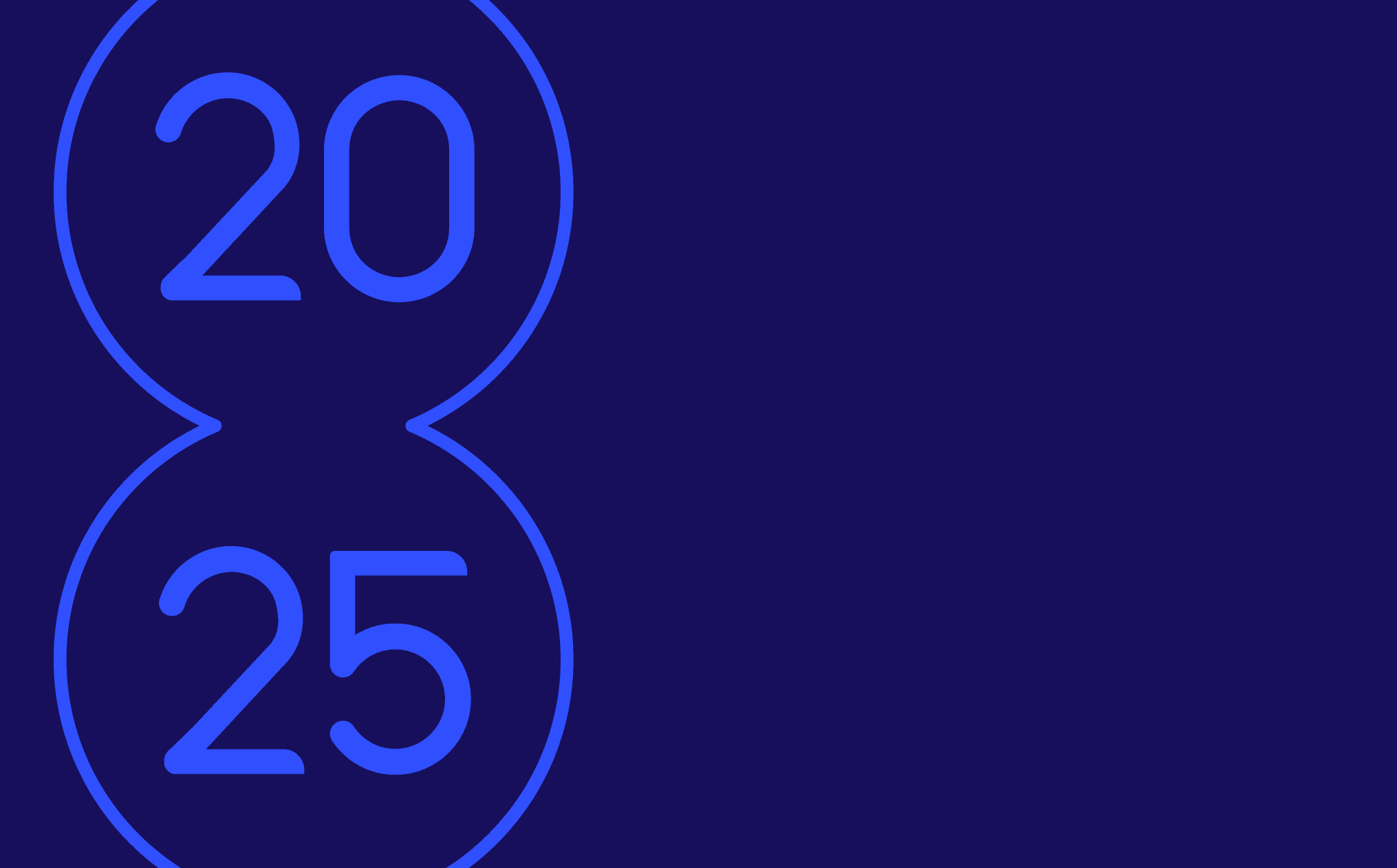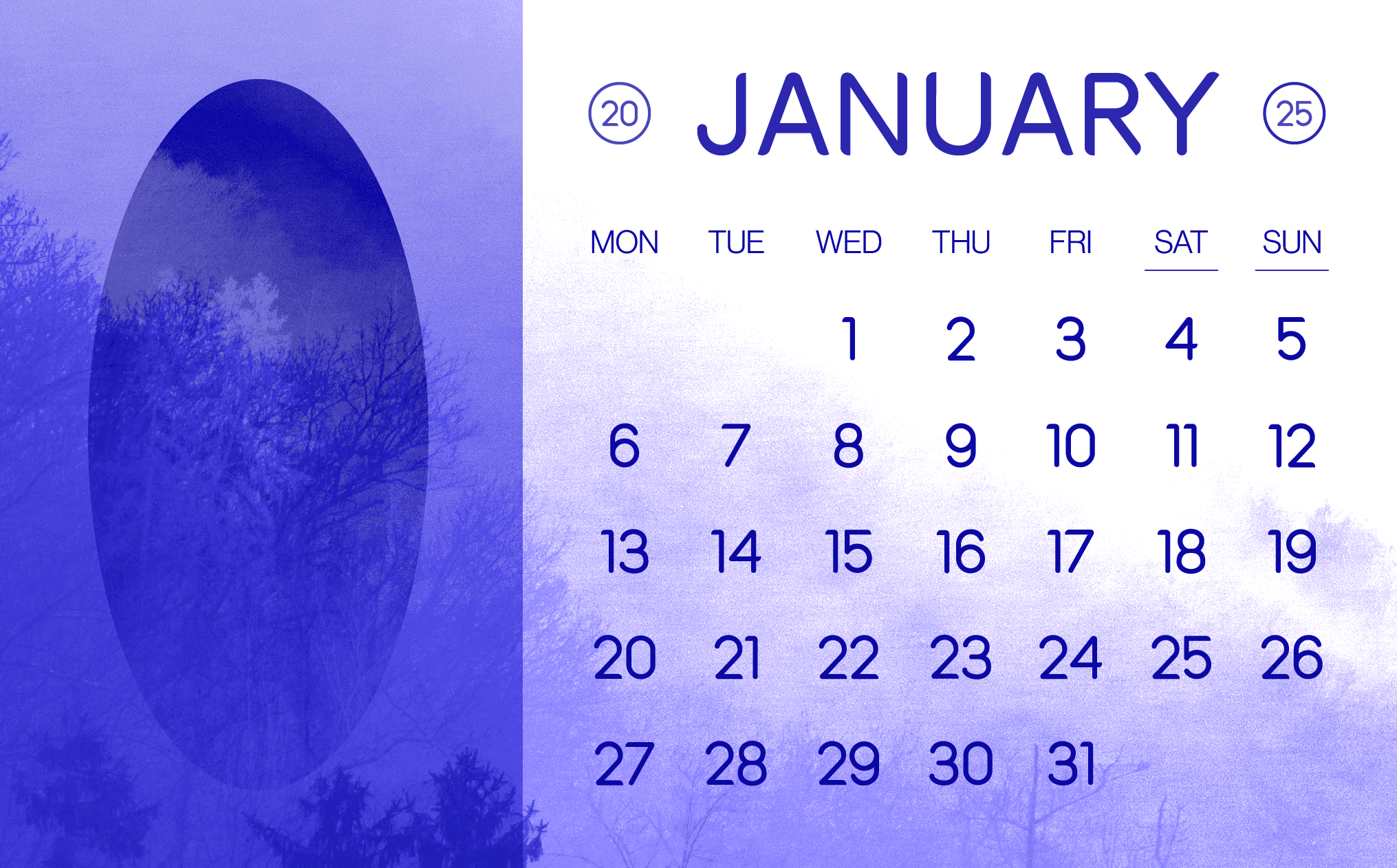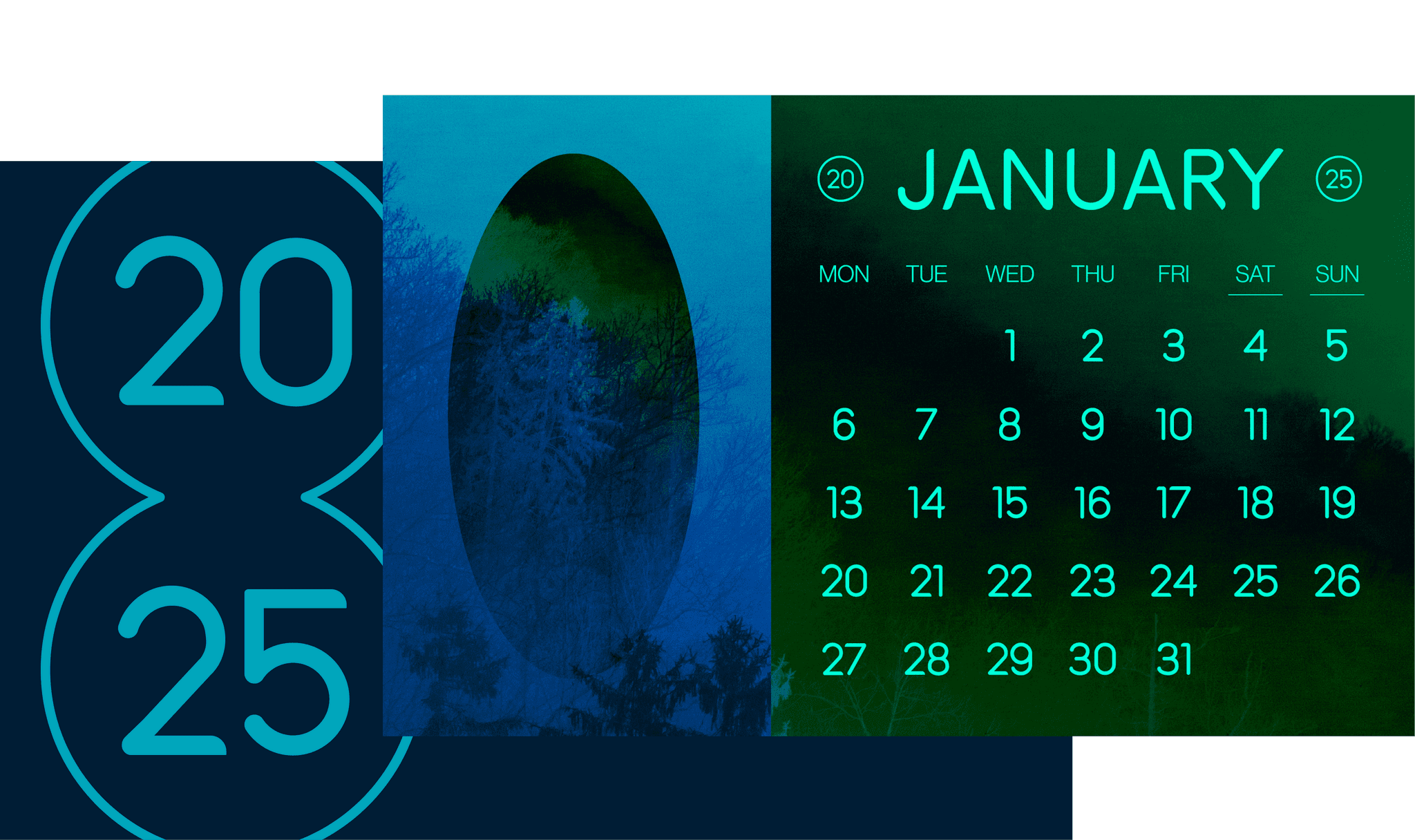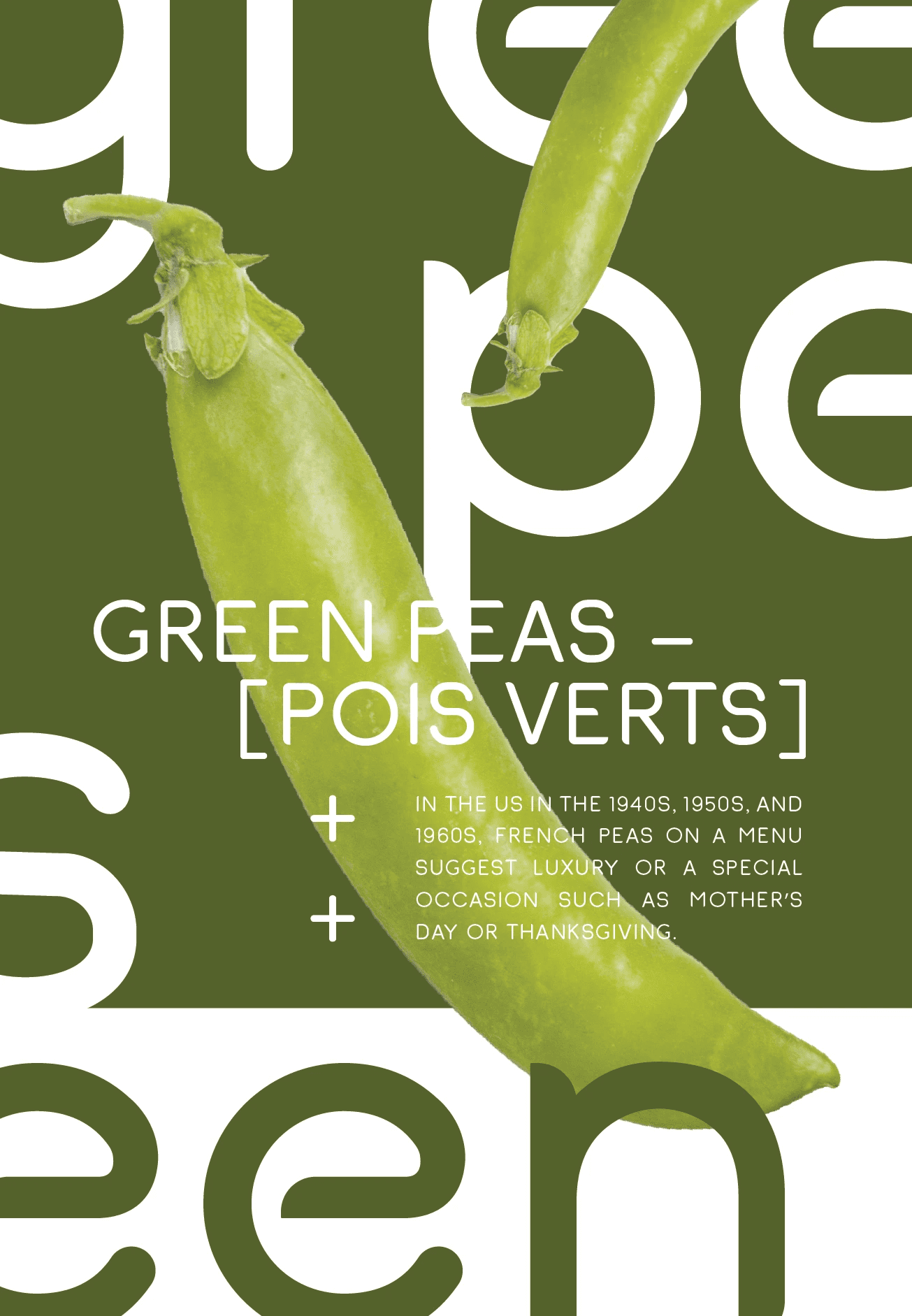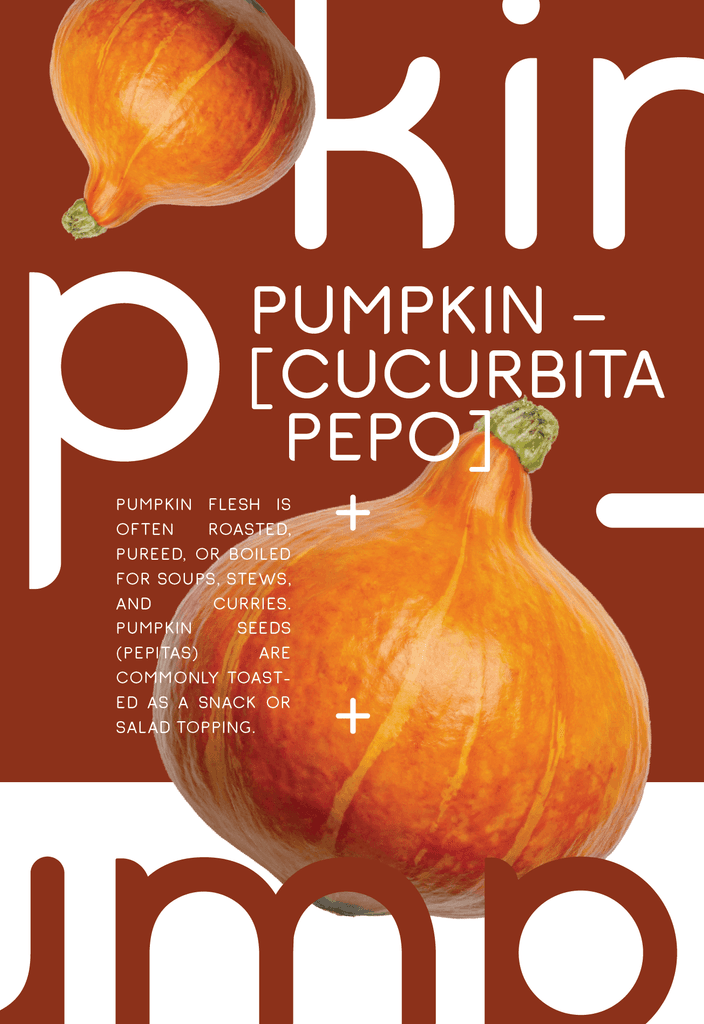
arbor
Arbor is a contemporary Sans Serif Geometric typeface with round features, inspired by nature's inclination toward circular and spherical shapes. Arbor, according to botany, is a tree or structure that supports vines or climbing plants. This typeface combines structure and organic flow, with each character designed to evoke the essence of a circle.
arbor
— a nature-inspired typeface.